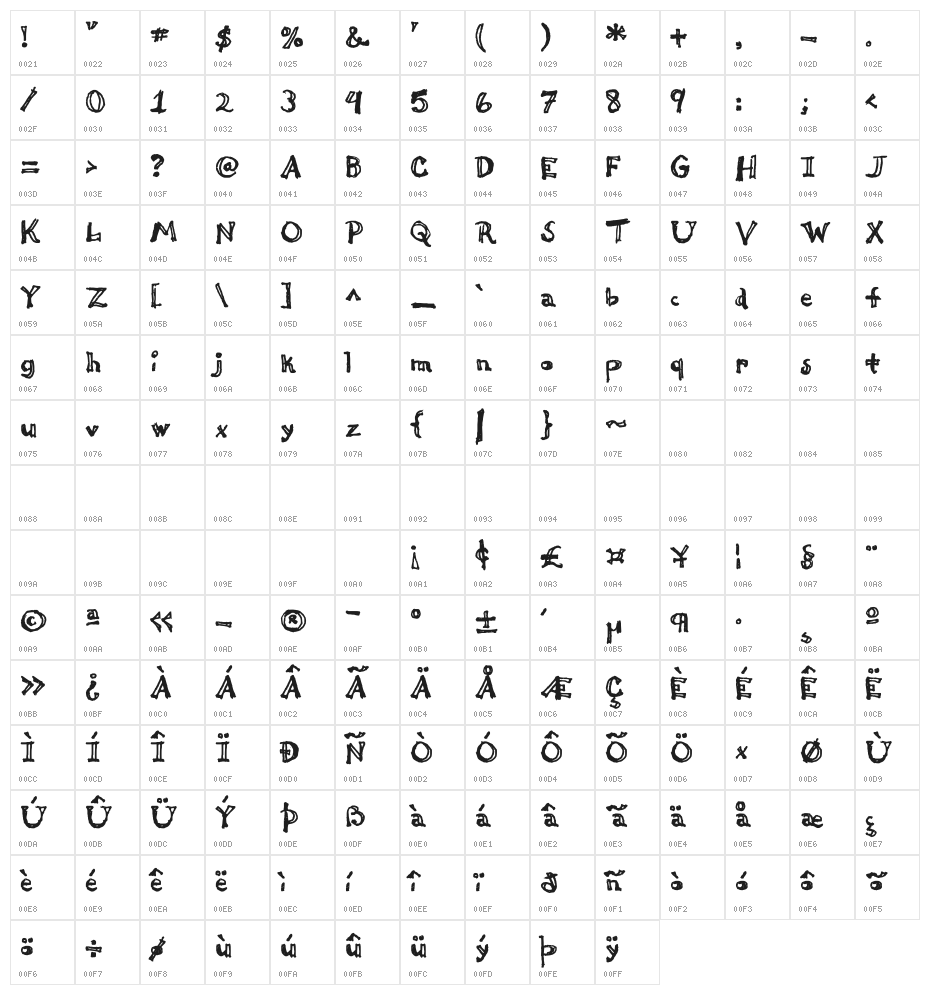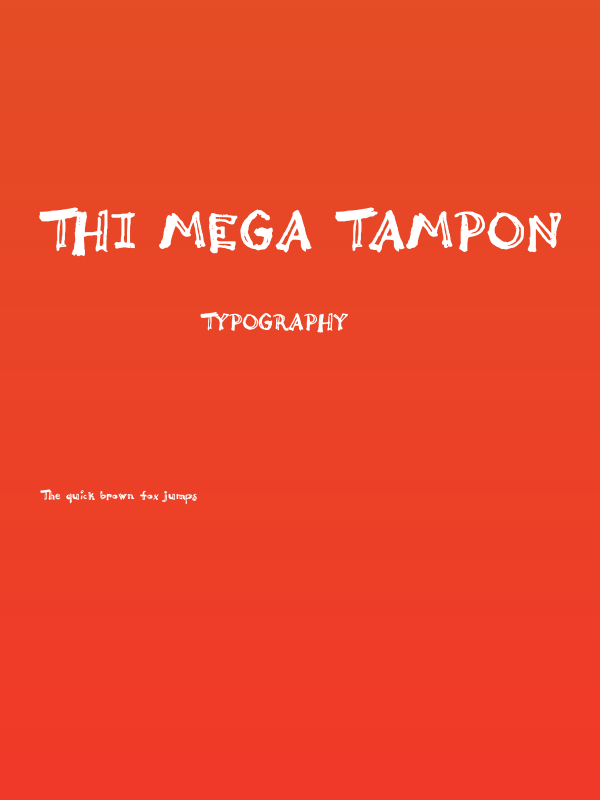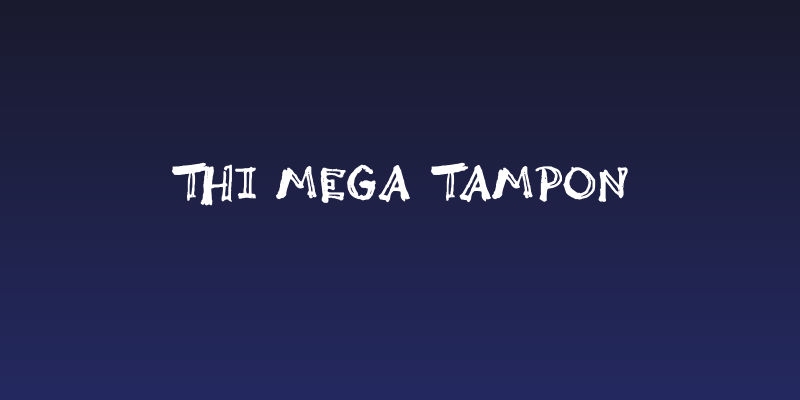
Thi Mega Tampon Font
Thi Mega Tampon Description
This font exhibits a bold, expressive style with a hand-drawn appearance. The characters are irregular and have a rough, textured look, giving them a dynamic and energetic feel. The uppercase letters are bold and slightly uneven, while the lowercase letters maintain a consistent style with a playful touch. The numbers and special characters follow the same aesthetic, adding to the overall cohesive look. This font's unique style makes it stand out, perfect for projects that require a creative and artistic touch.
Proposed ProjectsIdeal for posters, album covers, artistic projects, and branding that requires a bold statement.